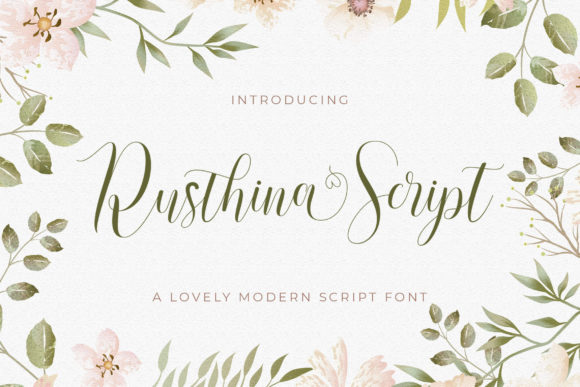
How Rusthina Became the Heart of a Café’s Branding Project
It was one of those mornings where the brief felt light but the expectations were high — a local café wanted a visual identity that felt warm, inviting, and just a little whimsical. As I opened my design board, I remembered seeing Rusthina in my fonts folder — a script handwritten typeface that promised a mix of elegance and modern charm. I had downloaded it a few weeks prior, curious about its calligraphic roots and contemporary edge. Today felt like the right day to test it in a real-world project.
Rusthina for Café Logos and Brand Names
Right away, I dropped the café’s name into my logo mockup using Rusthina. The font has a distinct flow, with subtle swashes and natural strokes that mimic real handwriting. It felt personal, like the kind of café where the barista remembers your name. I adjusted the kerning slightly to balance the letterforms and paired it with a clean sans serif for the tagline. The contrast between Rusthina and the supporting typeface gave the logo a modern yet approachable feel.
What stood out was how Rusthina maintained its legibility even at medium sizes — a big plus when considering signage or digital use. The font’s calligraphic influences gave it a timeless quality, while the fresh strokes kept it from feeling too vintage. For a café looking to feel both cozy and current, it was a perfect match.
Using Rusthina for Packaging and Menu Design
Once the logo got a tentative thumbs-up from the client, I moved on to packaging and printed materials. Rusthina worked beautifully on the menu board mockup — especially in the section headers for drinks and daily specials. I used it in a deep navy color on a white background, which enhanced the font’s natural texture and made it pop without being overwhelming.
On smaller items like coffee sleeves and thank-you cards, Rusthina’s personality shone through again. It added a human touch, something the client wanted to reflect their commitment to personal service. I made sure to keep the font usage limited to short-form text — names of drinks, event tags, or short descriptions — since Rusthina is best suited as a display or accent font rather than for long paragraphs.
Rusthina in Social Media Graphics and Digital Branding
Next came the digital side of the brand — Instagram posts, stories, and website headers. I wanted to maintain consistency across platforms, so I used Rusthina in the hero section of the site mockup. It worked well in a soft cursive style over a warm-toned background, giving the homepage a welcoming vibe.
In social media templates, I used Rusthina for headlines and key phrases like “New Seasonal Latte” or “Join Us for Live Music Friday.” The font’s clean lines and open spacing made it readable even on mobile screens. I also appreciated the variety of ligatures and alternates included with Rusthina — it allowed me to tweak the look slightly for each post without repeating the same letterforms.
Pairing Rusthina with Supporting Fonts
One of the early questions was how to pair Rusthina with other fonts in the brand system. Since it’s a script handwritten font, I wanted to balance it with something neutral but still stylish. I landed on a soft serif for subheadings and a minimalist sans serif for body copy. This trio created a visual hierarchy that felt intentional without being too busy.
The contrast between Rusthina and the more structured fonts added depth to the layout. It also helped the café’s branding feel cohesive across different touchpoints — from the chalkboard menu to the website and printed flyers. Rusthina remained the standout element, while the other fonts grounded the design and provided structure.
Testing Rusthina Across Print and Digital Media
Before finalizing the brand system, I ran a few tests to see how Rusthina held up in different environments. I printed samples of the menu and signage to check legibility in natural light. On screen, I previewed the website mockup across devices and browsers. In both cases, Rusthina performed well — the strokes were clear, and the character spacing remained consistent.
I also checked the font’s multilingual support, just in case the café ever wanted to include seasonal specials in another language. Rusthina covered a decent range of characters, which gave me confidence in its flexibility for future use. The included file formats (OTF, TTF, WOFF) also made it easy to implement across both design software and web platforms.
Final Thoughts: Rusthina as a Versatile Branding Font
By the time the café’s branding was complete, Rusthina had become more than just a font choice — it was the emotional tone of the entire visual identity. It brought warmth, personality, and a sense of craftsmanship to every element, from the logo to the packaging to the social media presence. As a designer, I appreciated how easy it was to work with and how well it translated across mediums.
If you’re working on a brand identity for a small business — especially in food, lifestyle, or creative services — Rusthina is definitely worth testing. Whether you're designing a logo, packaging, or digital assets, this script handwritten font brings a modern elegance that feels both timeless and fresh. And for a font to make that kind of impact in a real project? That’s when you know it’s more than just a pretty typeface — it’s a true favorite.